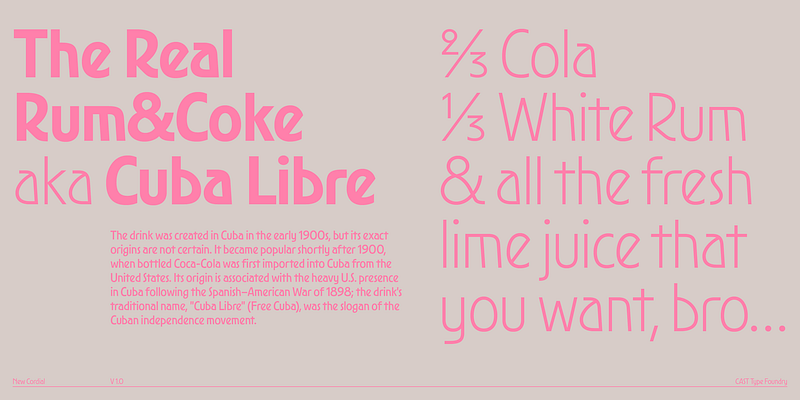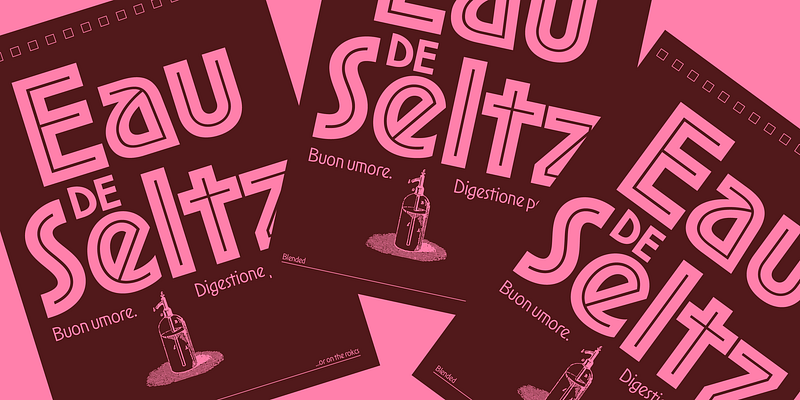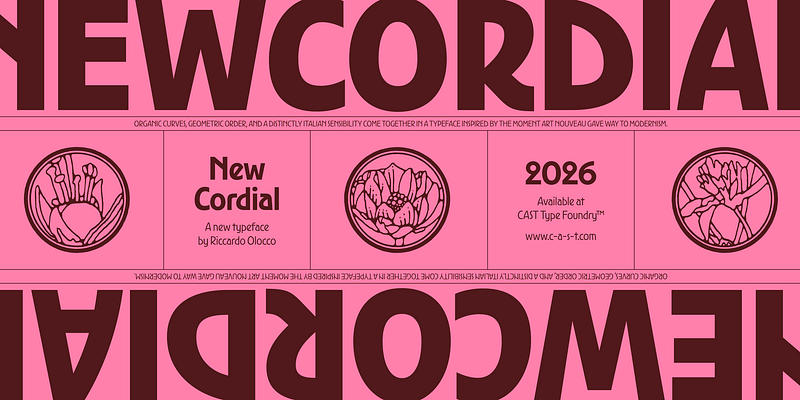
New Cordial combines sinuous lines and organic details in a geometric framework evoking an extraordinary moment in Italian typography when Art Nouveau letterforms blended with emerging European Modernist ideas. Rather than reviving an existing wood or metal typeface, it is a contemporary design informed by historical research.